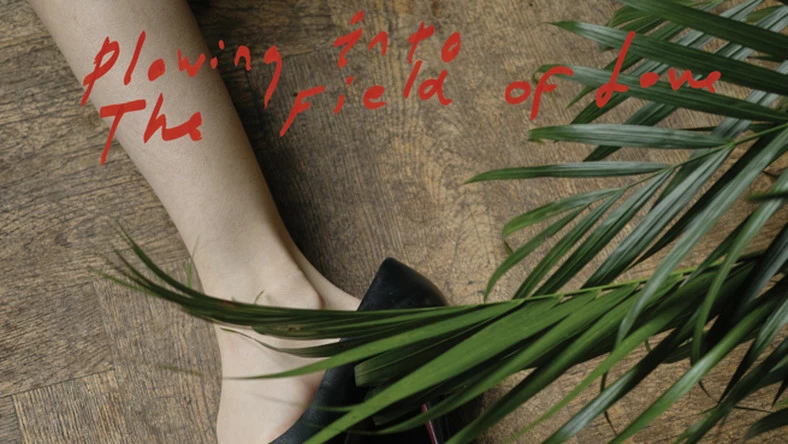
Custom font
I'm a tattoo artist since like a year now and just curious if there is an easy way to create my own font.
The one from pic below is the closest I can get with showing you the direction I want to go, If you know the font name it will help too!
Album cover, Plowing into the field of love by Iceage
There are several online tools that claim to convert scanned shapes into a "font", but to do it properly - especially with cursive characters that have to join together - is a complicated process involving tables of kerning calculations and some very careful design rules. Most foundries use commercial packages such as FontLab.
Adobe has no software for font design or manipulation.